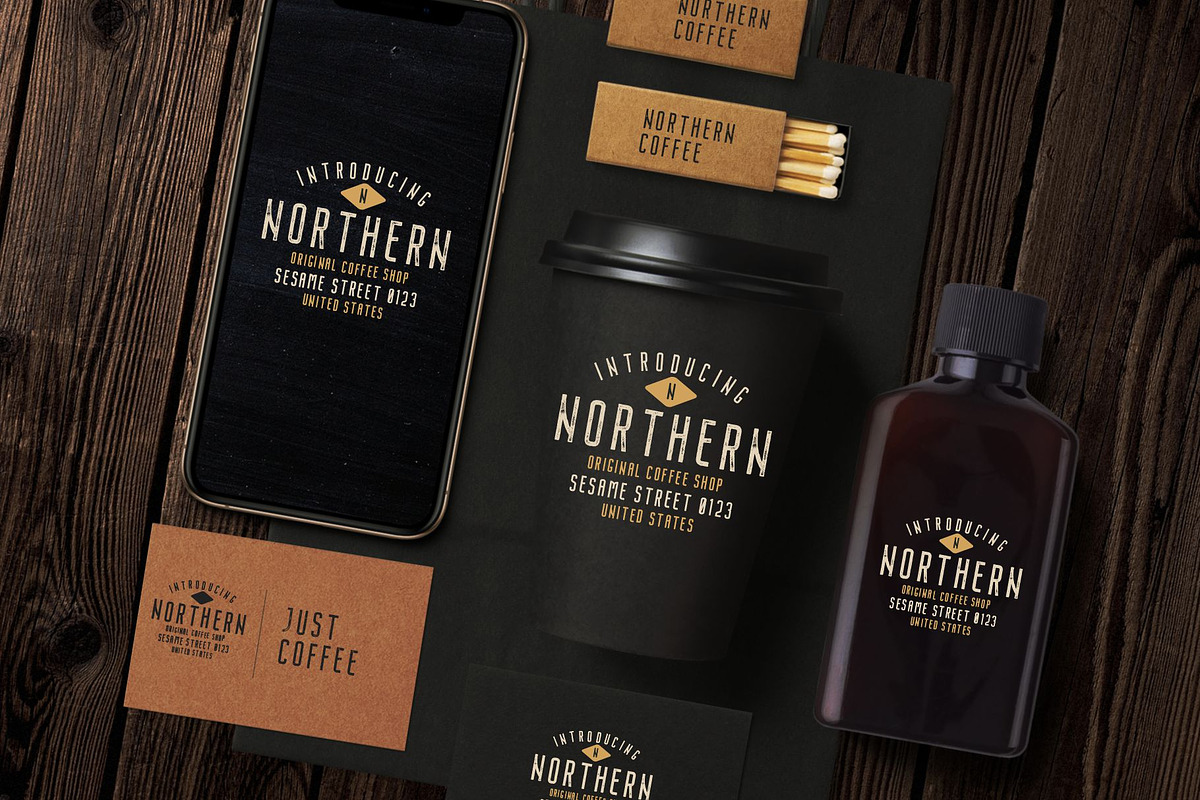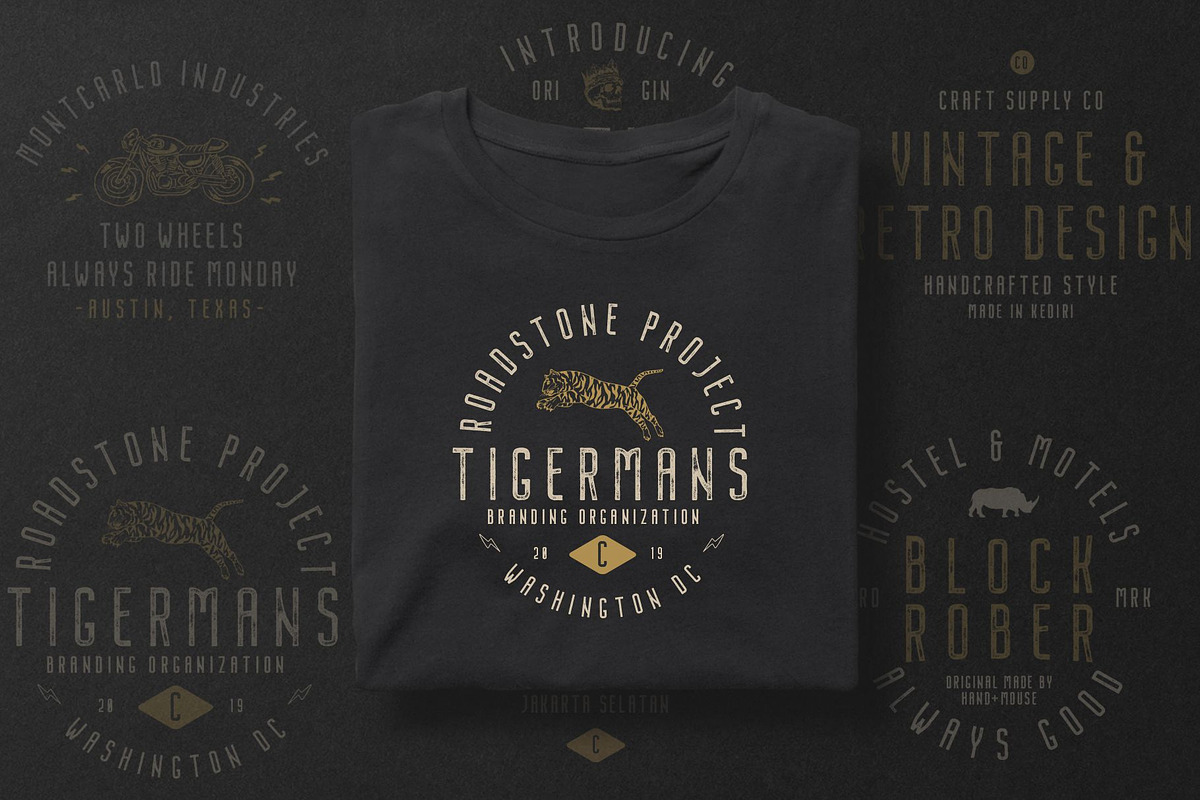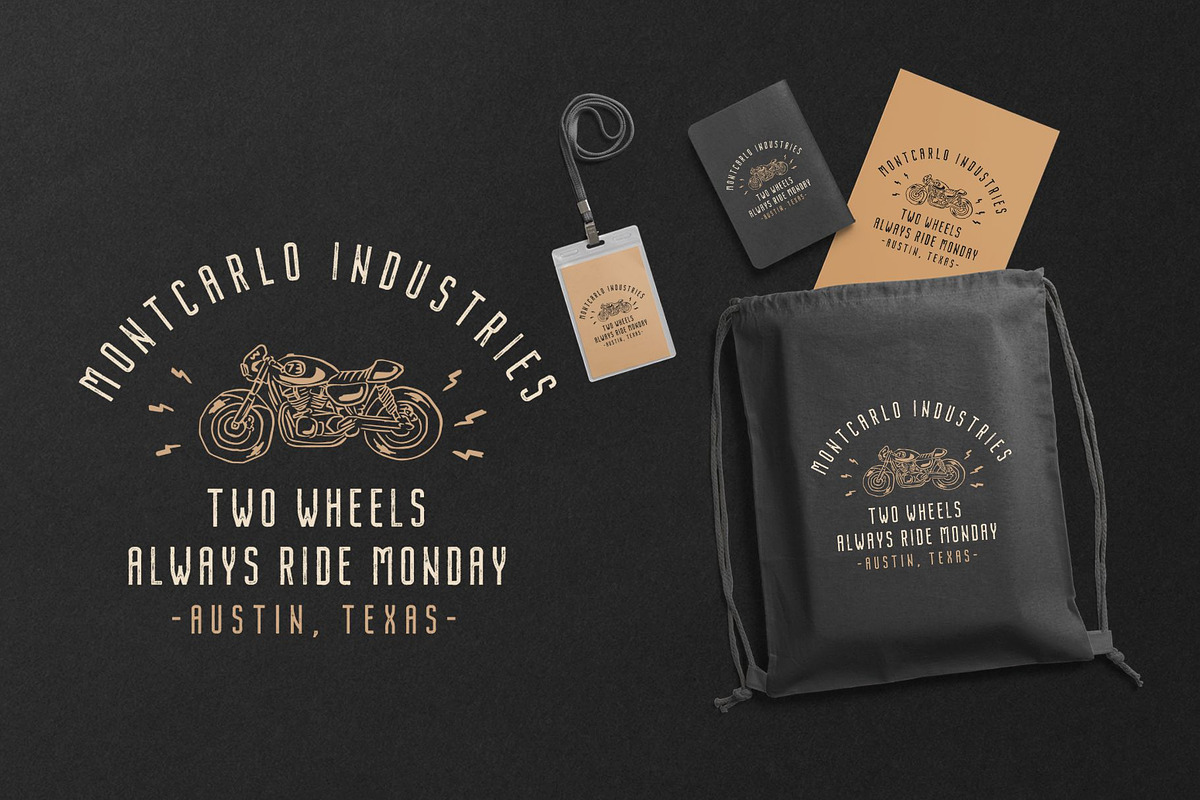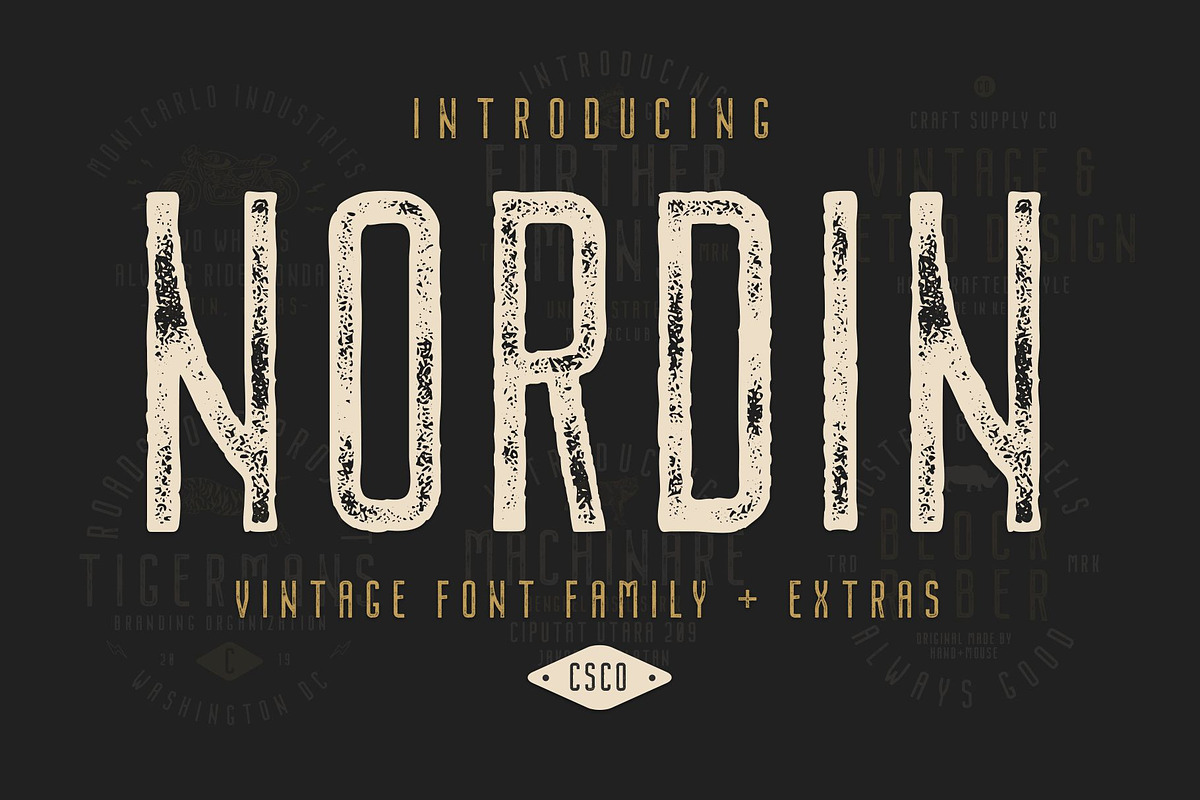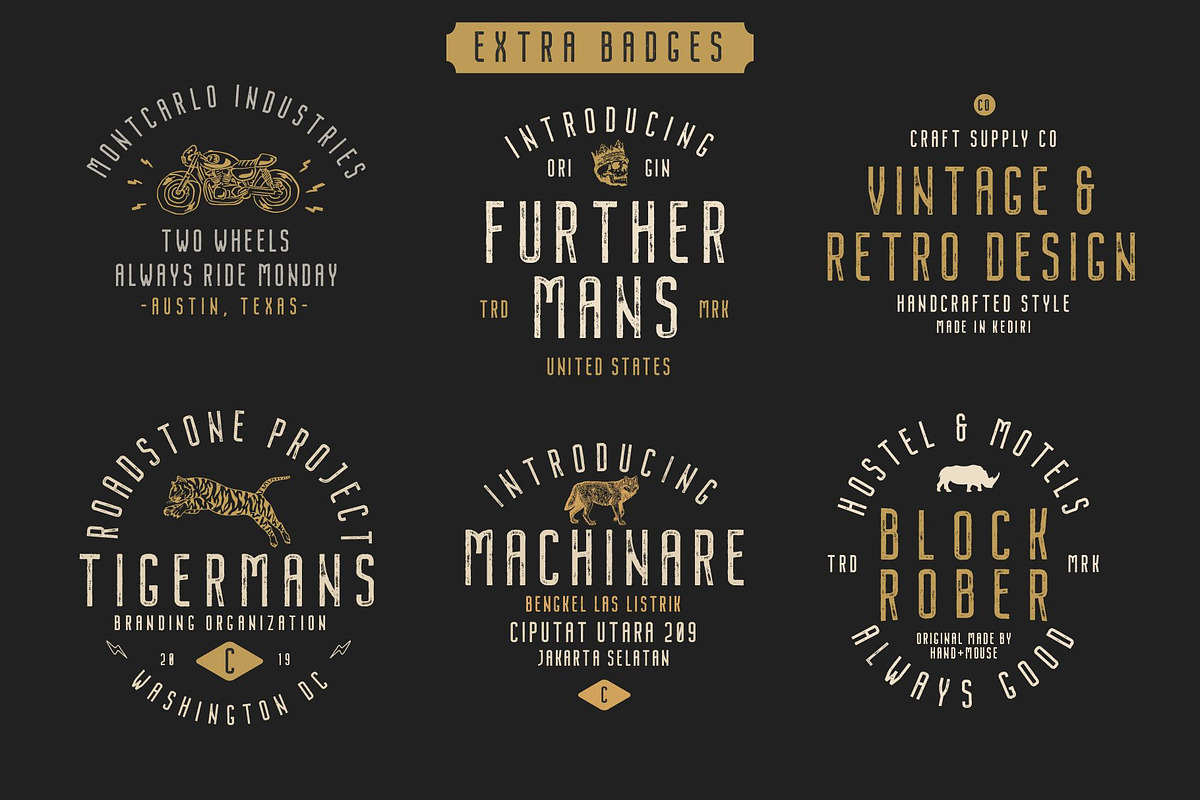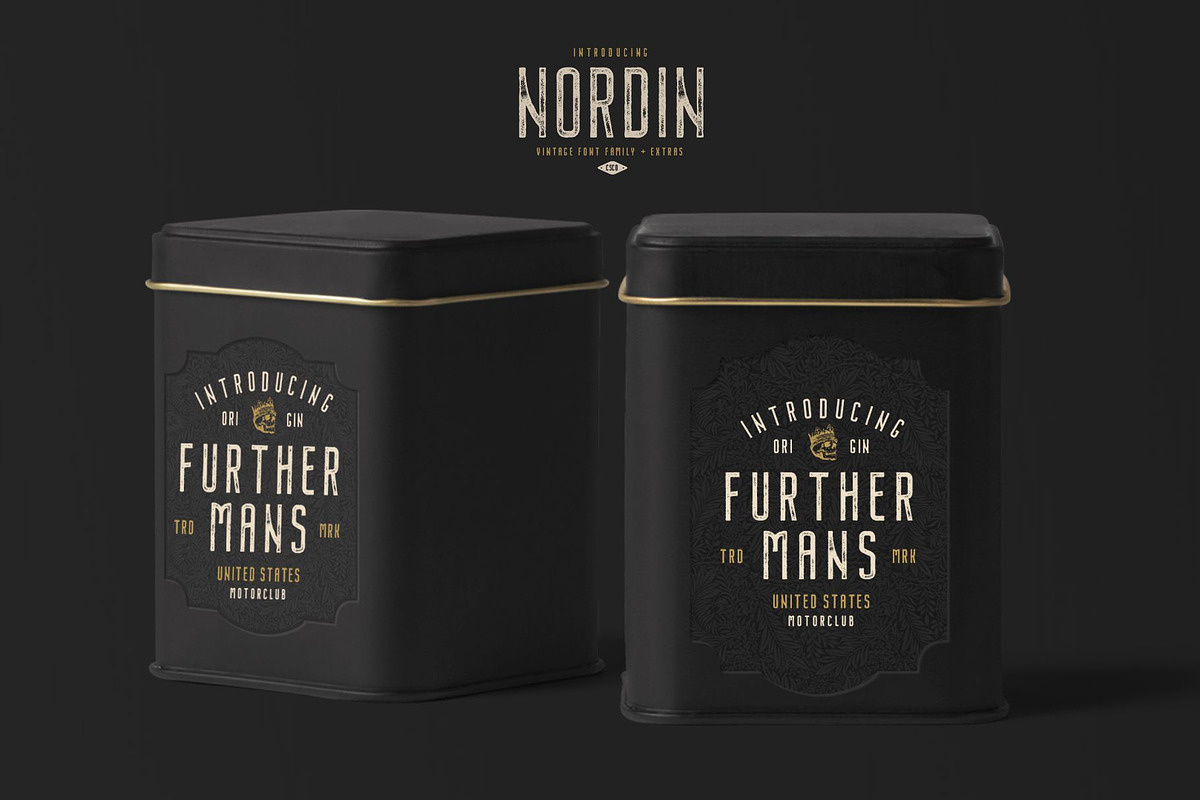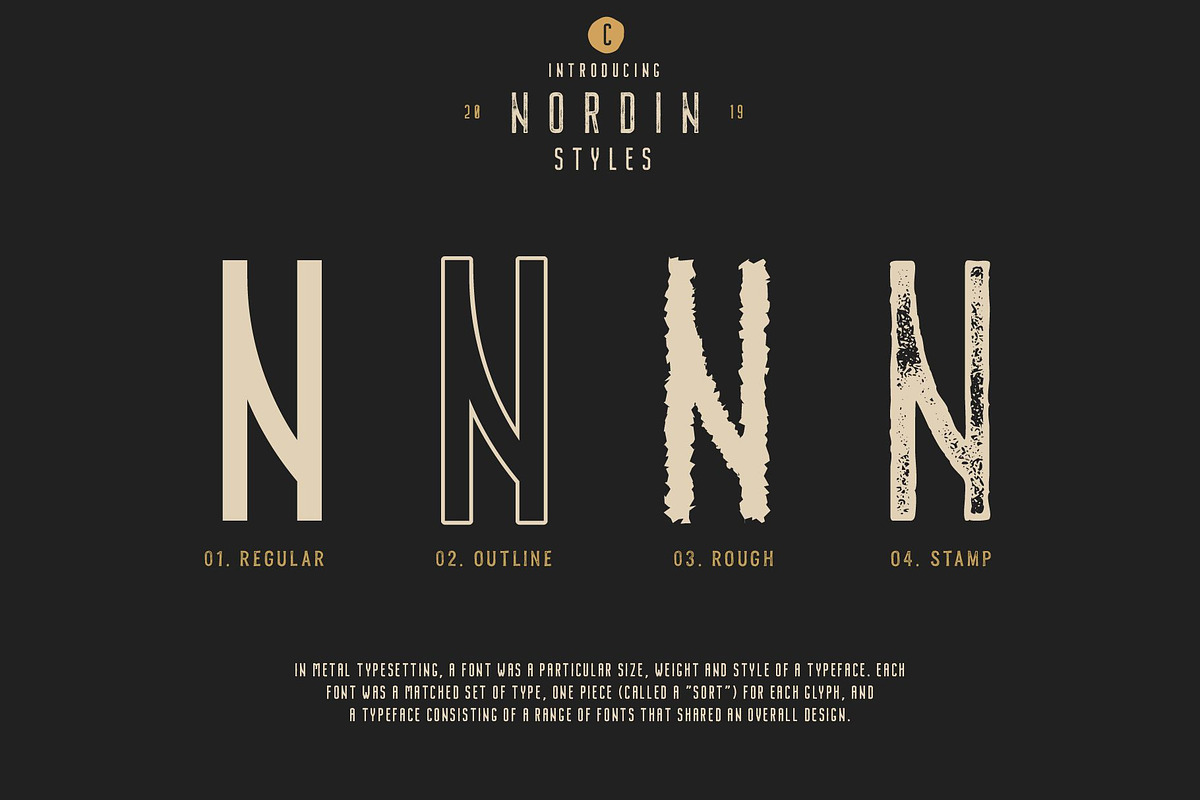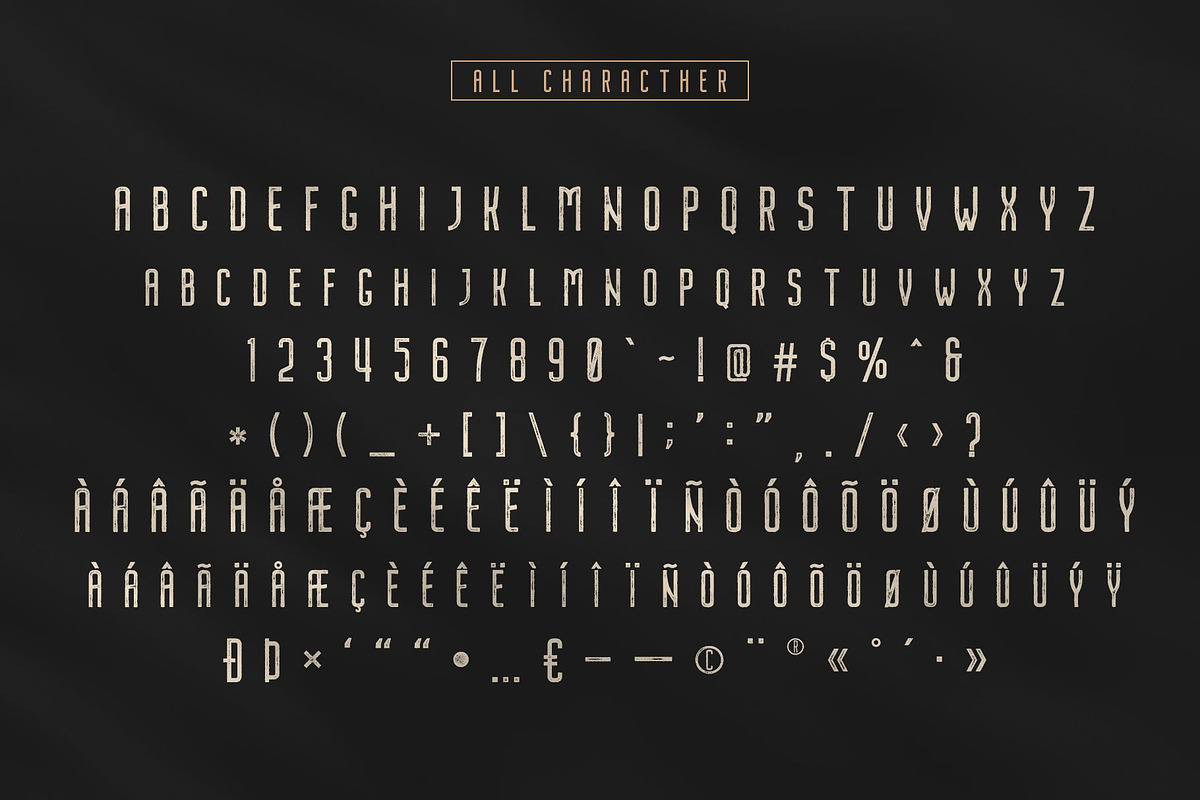
Nordin Vintage Font Family + Extras
Introducing Nordin Vintage Font Family + Extra Badges
Nordin Vintage Font Family includes 4 Style Fonts. It can be used to create almost all types of design projects like print materials. Just use your imagination and some graphic design set in Extras, your project will become more alive and look great than ever with one of the Nordin Font Family.
You want to make a greeting card or a package design, or even a brand identity, craft design, any DIY project, book title, wedding font, pop vintage design, retro design or any purpose to make your art / design project look pretty and trendy? Feel free to play with all the patterns and shape!
3. Standard Ligatures
4. Numerals & Punctuations (OpenType Standard)
5. Accents (Multilingual characters) (AÀÁÂÃÄÅCÇDÐEÈÉÊËIÌÍÎÏNÑOØÒÓÔÕÖUÙÜÚÛWYÝŸỲŸÆŒßÞ)
- Nordin Outline
- Nordin Rough
- Nordin Stamp
- Extra Badges
- Features :
- All Caps font
- 2. Nordin Outline
- 3. Nordin Rough
- 4. Nordin Stamp
- 5. Extra Badges
- Features :
- 1. All Caps font
- 2. Stylistic Alternates
- 1. All Caps font
- 2. Stylistic Alternates
- 3. Standard Ligatures
- 4. Numerals & Punctuations (OpenType Standard)
- 5. Accents (Multilingual characters) (AÀÁÂÃÄÅCÇDÐEÈÉÊËIÌÍÎÏNÑOØÒÓÔÕÖUÙÜÚÛWYÝŸỲŸÆŒßÞ)